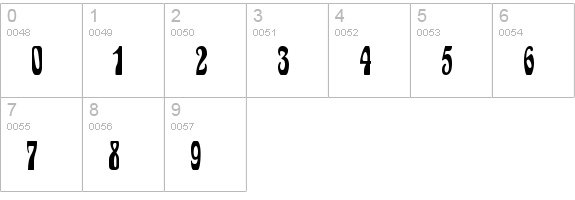
Epic Normal is the standard, neutral variant in the Epic typeface family \xE2\x80\x94 well suited to general body text, paragraphs, and standard typographic work.
Introducing Epic Normal font, a versatile and stylish typeface that exudes elegance and sophistication. With its sleek lines and modern design, Epic Normal is perfect for a wide range of projects, from branding to editorial design. This font strikes the perfect balance between classic and contemporary, making it a timeless choice for your creative endeavors. What's even better is that Epic Normal is available for free download at FontsMarket.com! Yes, you read that right - this incredible font can be yours at no cost, allowing you to elevate your designs without breaking the bank. Don't miss out on the opportunity to add Epic Normal to your font collection and take your projects to the next level. Download it today and let your creativity soar!